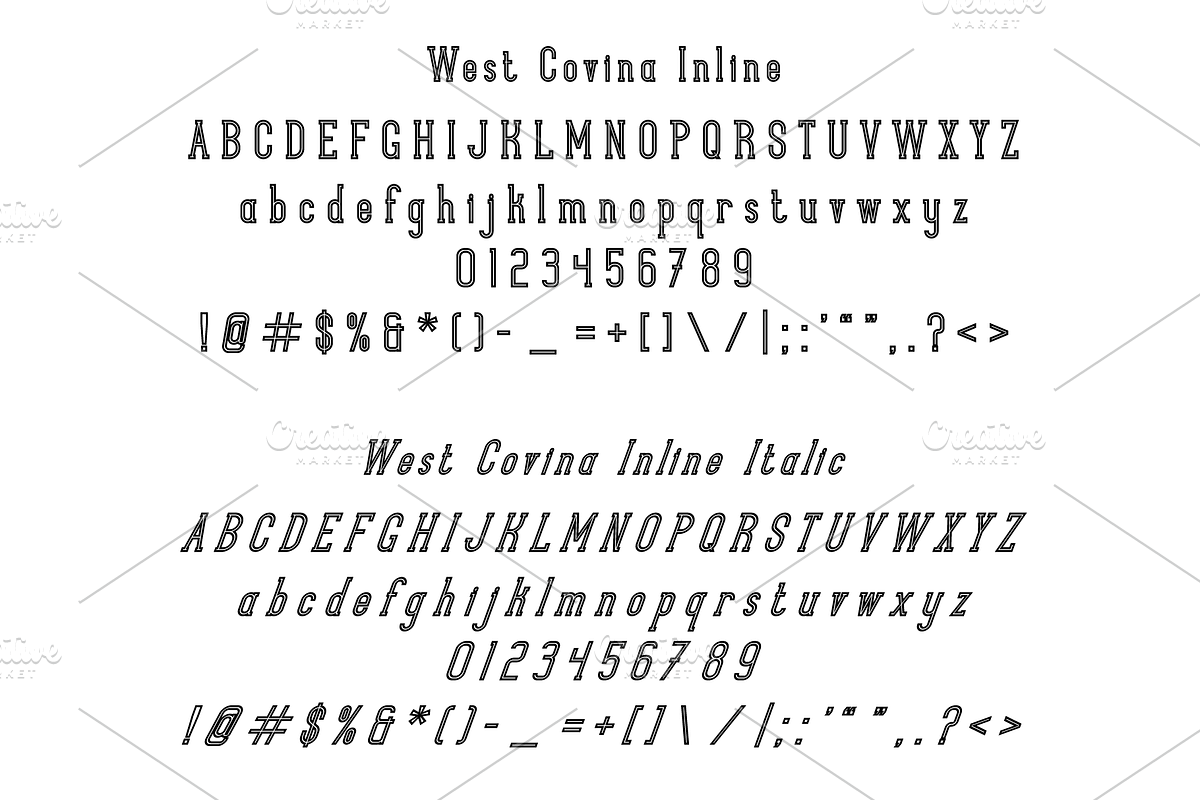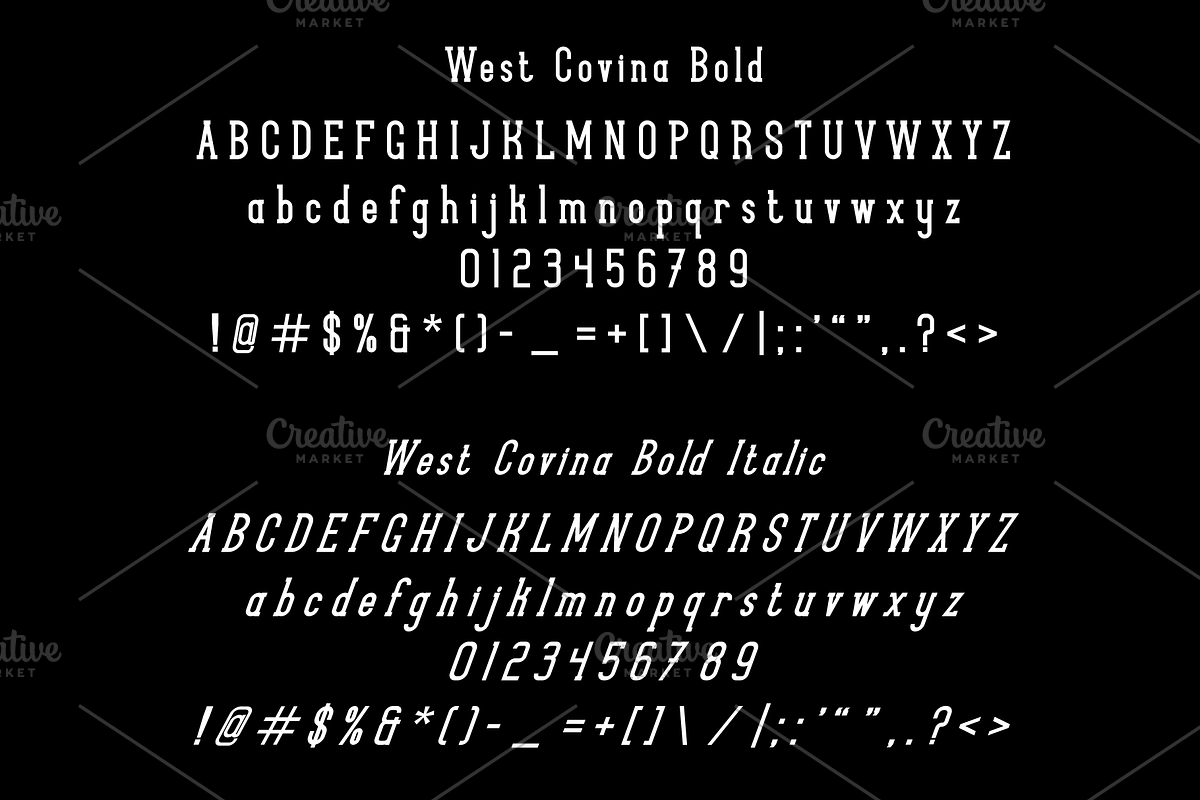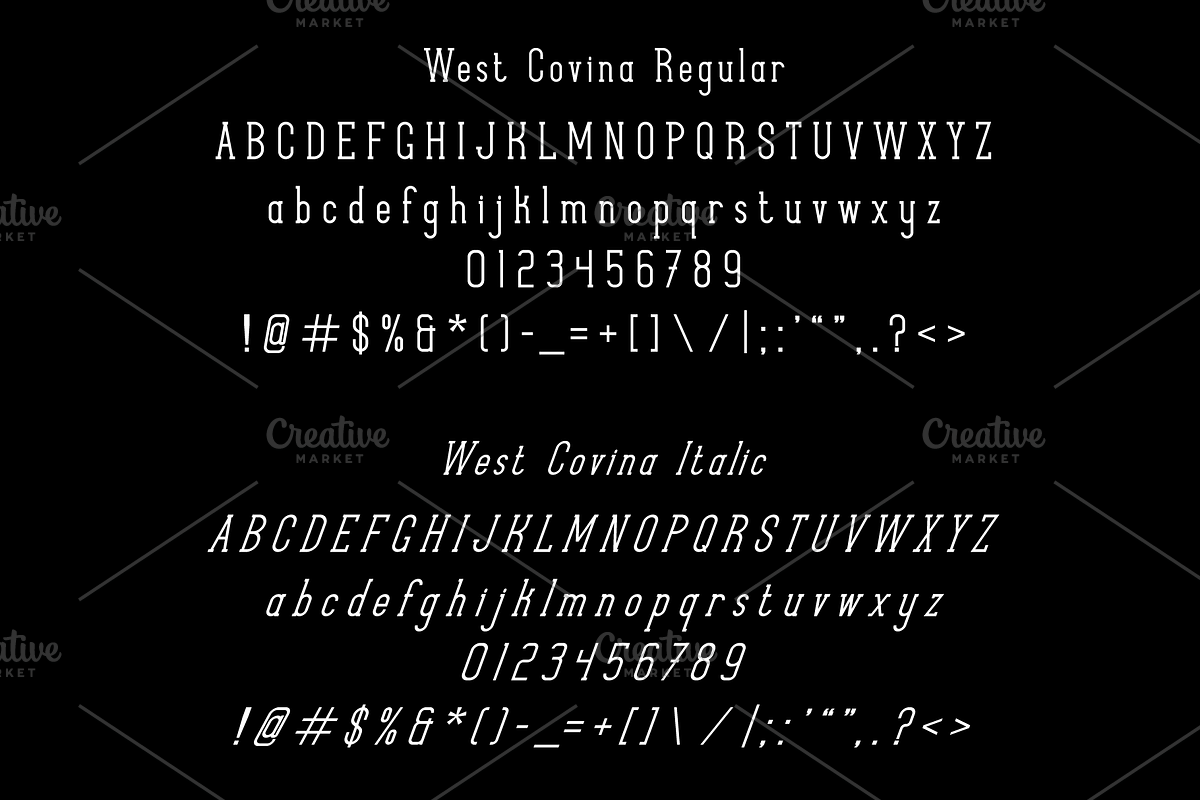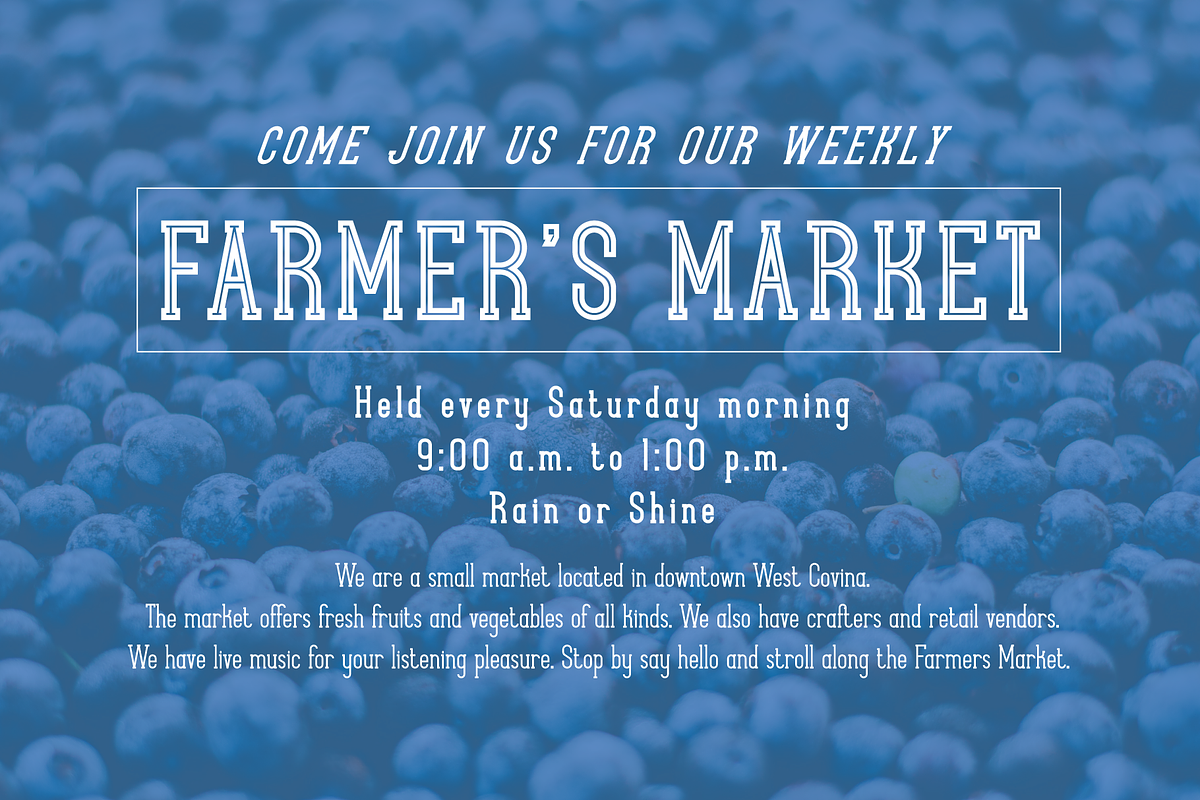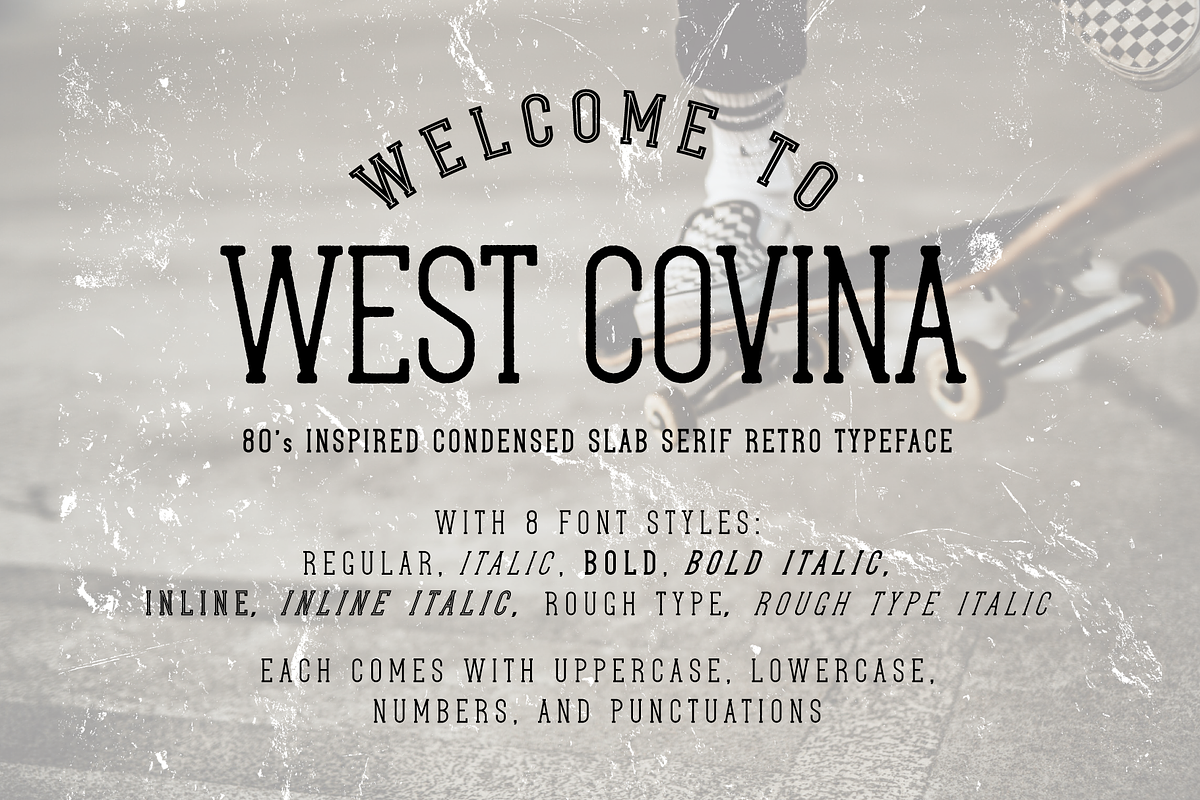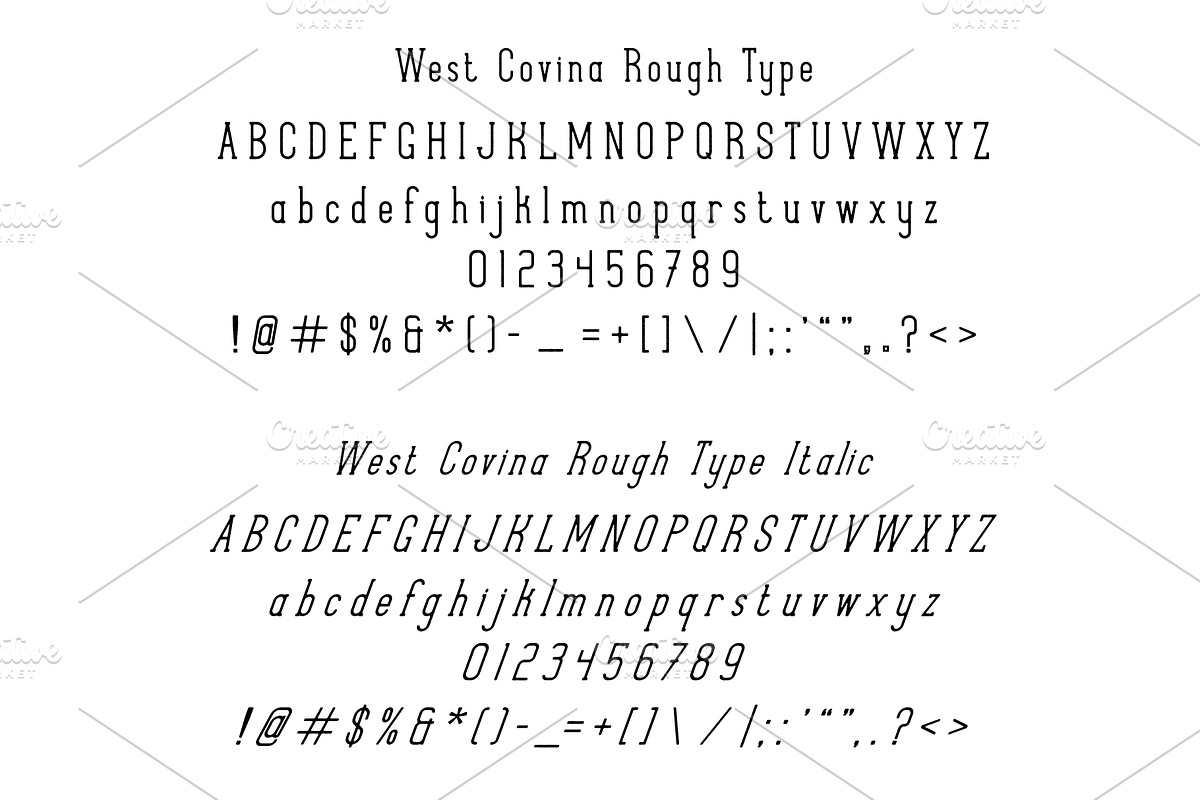
West Covina
It is an 80's inspired condensed slab serif retro typeface, a must have for your type collection. The simplistic lines brings back the days just hanging out, skating around, and just having fun.
The West Covina typeface family comes with 8 font styles and each includes uppercase, lowercase, numbers, and punctuations. Great for a wide variety of uses for branding, advertising, posters, book covers, and apparel design.